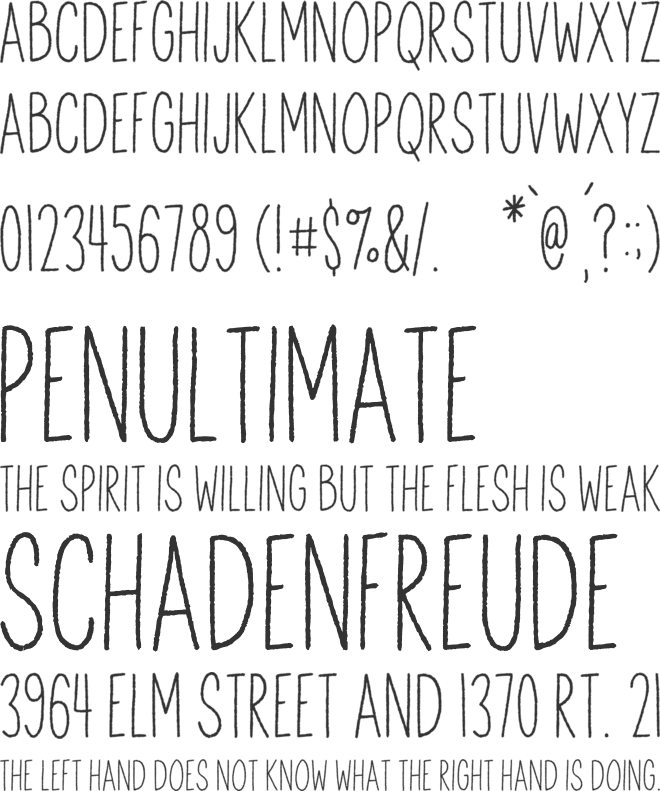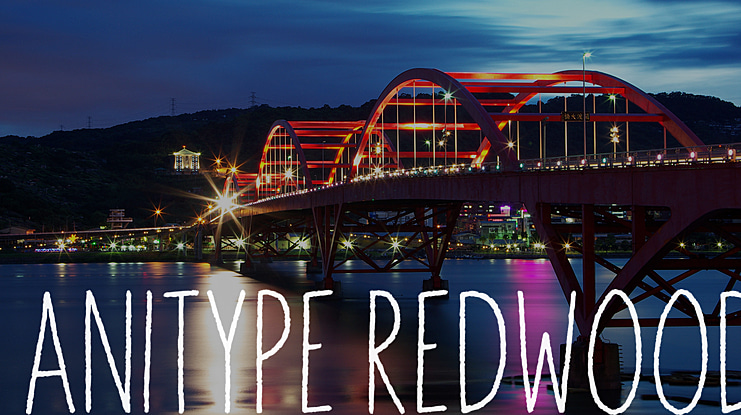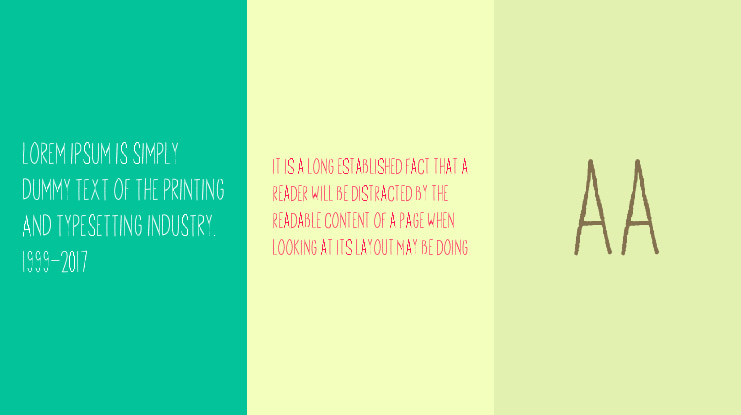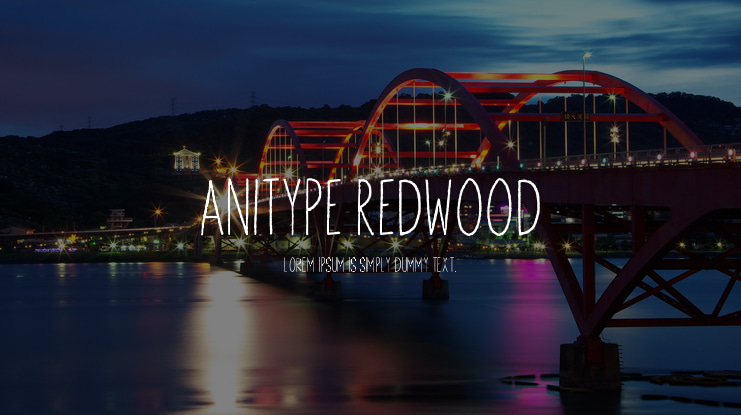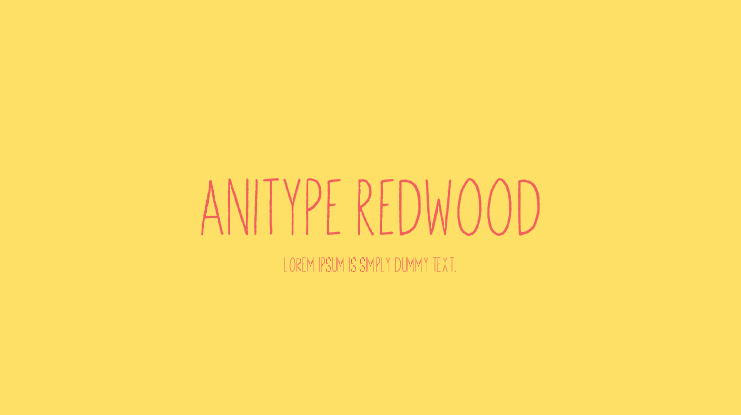
Anitype Redwood Font Family
Anitype Redwood is an animated, handwritten typeface. Each glyph is drawn five times to produce a naive animated effect when used as frames of an animation. It can be animated in CSS, Javascript, or however else as long as the fonts switch!